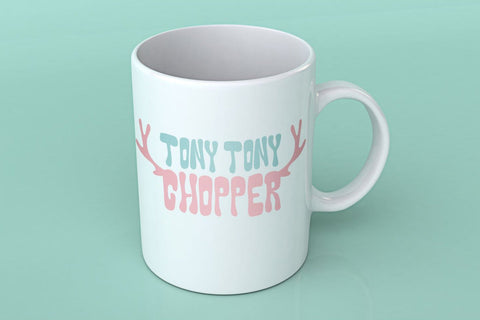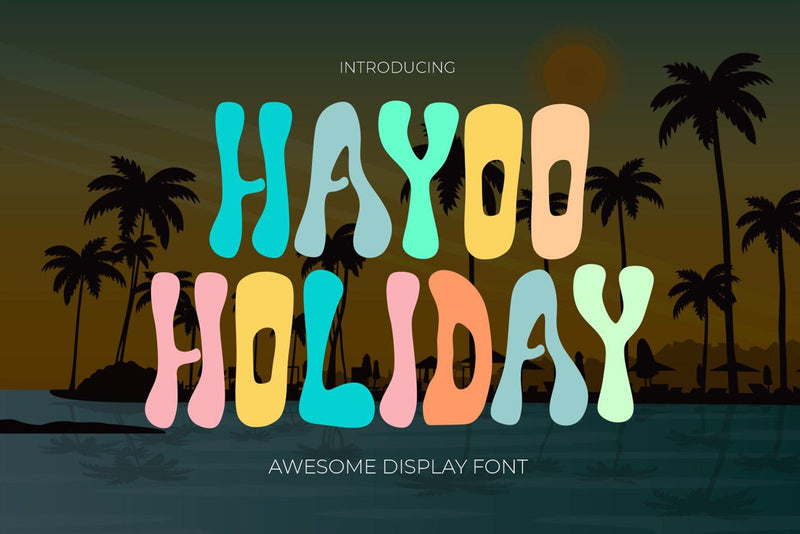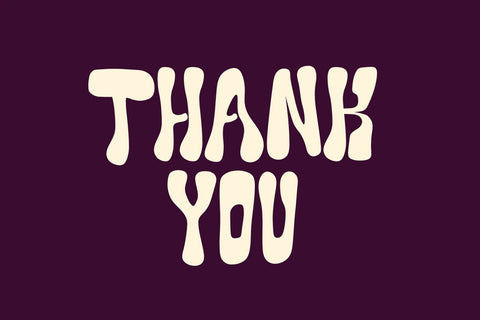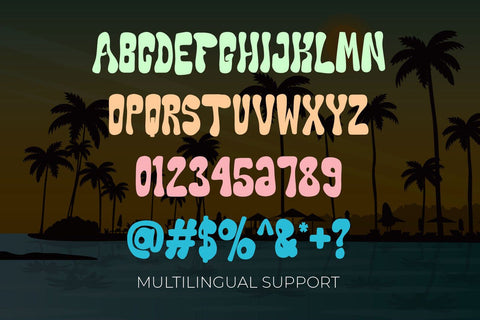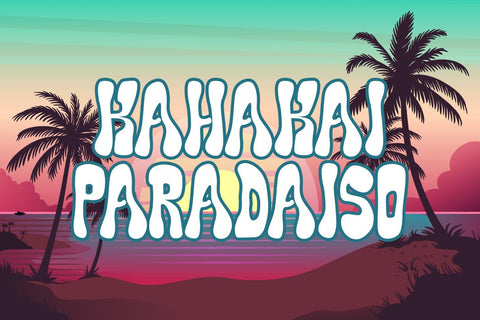
Hayoo Holiday - Quirky Display Font
"Hayoo Holiday" is a display font where each character has a wavy appearance. Fonts like this add an element of playfulness and fun to your design. Wavy characters provide a unique look and can be used in various design projects that aim to emphasize a creative and cheerful touch. This font is often used in designs for special events, parties, or promotional materials that want to grab attention and create a festive atmosphere.